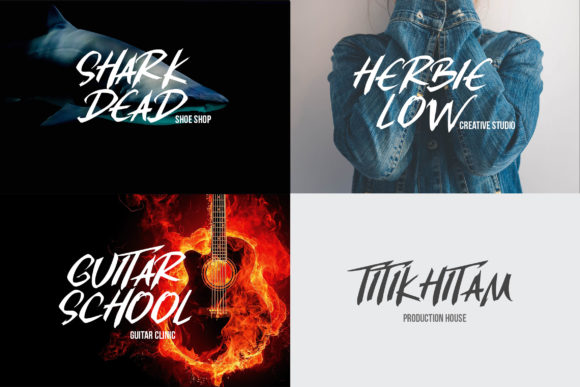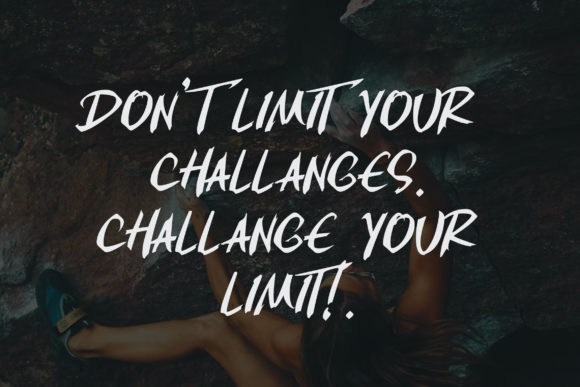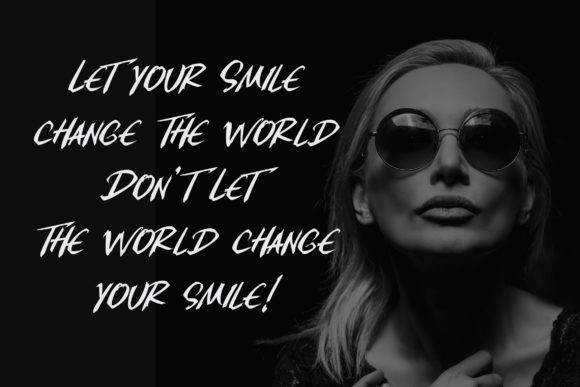
Introduction to Heart Quarter Font
Have you ever found yourself in the middle of a creative project, pouring your heart and soul into it, only to be held back by the perfect font? That’s exactly what happened to me, until I discovered the Heart Quarter Font. This strong and bold brush font is more than just a design element – it’s a game-changer for any project that needs a modern and urban vibe.
With its high quality and transparent background, the Heart Quarter Font is a valuable resource for designers looking to elevate their work. Whether you’re working on a personal project or a client’s brief, this font is sure to impress. And the best part? It’s available for free download, making it an accessible design resource for creatives of all levels.
Key Features of Heart Quarter Font
- High-quality, professional font ideal for creative projects and design resources
- Unique design with a transparent background, perfect for overlaying on images or videos
- Vector-based font with scalable resolution, suitable for use in various sizes and resolutions
- Includes a range of characters, including uppercase and lowercase letters, numbers, and special symbols
- Designed with a modern and elegant style, ideal for use in branding, logos, and typography
Honest Review: Heart Quarter Font
As a designer, I’m always on the lookout for high-quality design resources that can elevate my creative projects. I recently came across the Heart Quarter Font, and I was impressed by its unique features.
What works well: ✨ The font has a beautiful, cursive style that’s perfect for adding a touch of elegance to your designs. The transparent background option is also a great feature, allowing you to easily overlay the font on top of other design elements. Additionally, the font is available as a free download, making it a great resource for designers on a budget.
- Unique, cursive style
Any limitations: ⚠️ While the font is high-quality, it may not be suitable for all types of designs. The cursive style can be a bit too whimsical for some projects, and the transparent background option may not work well with certain design elements.
Overall, I was impressed by the Heart Quarter Font and would recommend it to designers who are looking for a unique and elegant font to add to their design resources. However, it’s essential to consider the limitations and use it judiciously in your creative projects.
Common Use Cases for Heart Quarter Font
The Heart Quarter Font is versatile and can be used for a variety of creative projects, including social media graphics, posters, flyers, presentations, and documents. Its high-quality design and transparent background make it a valuable resource for designers and artists.